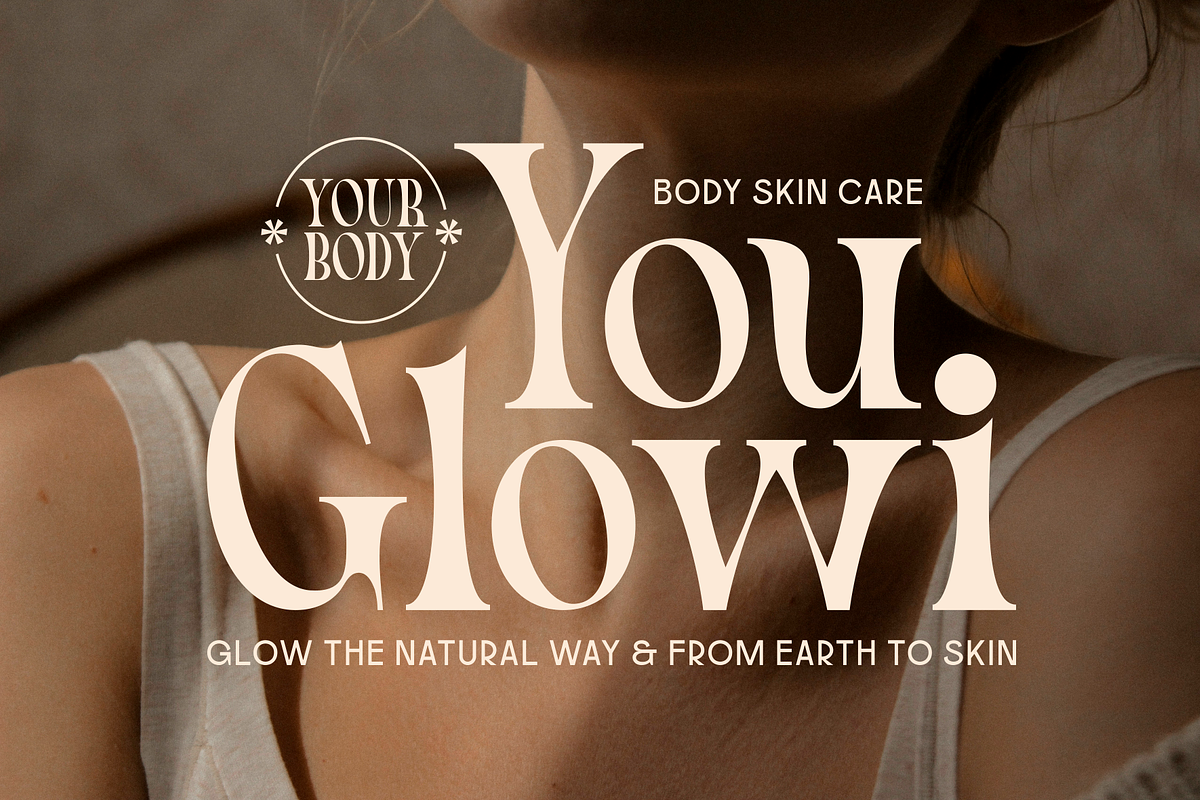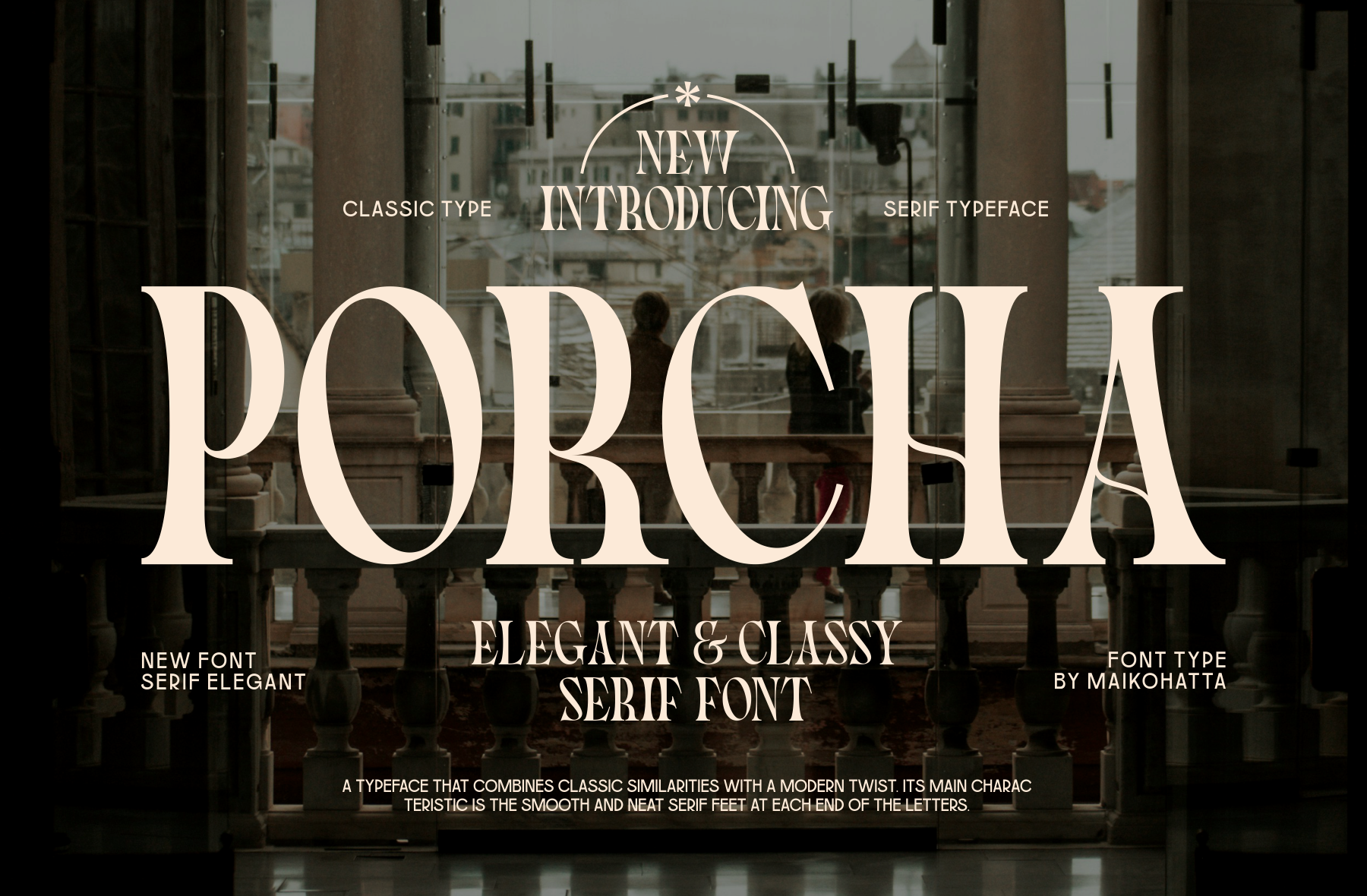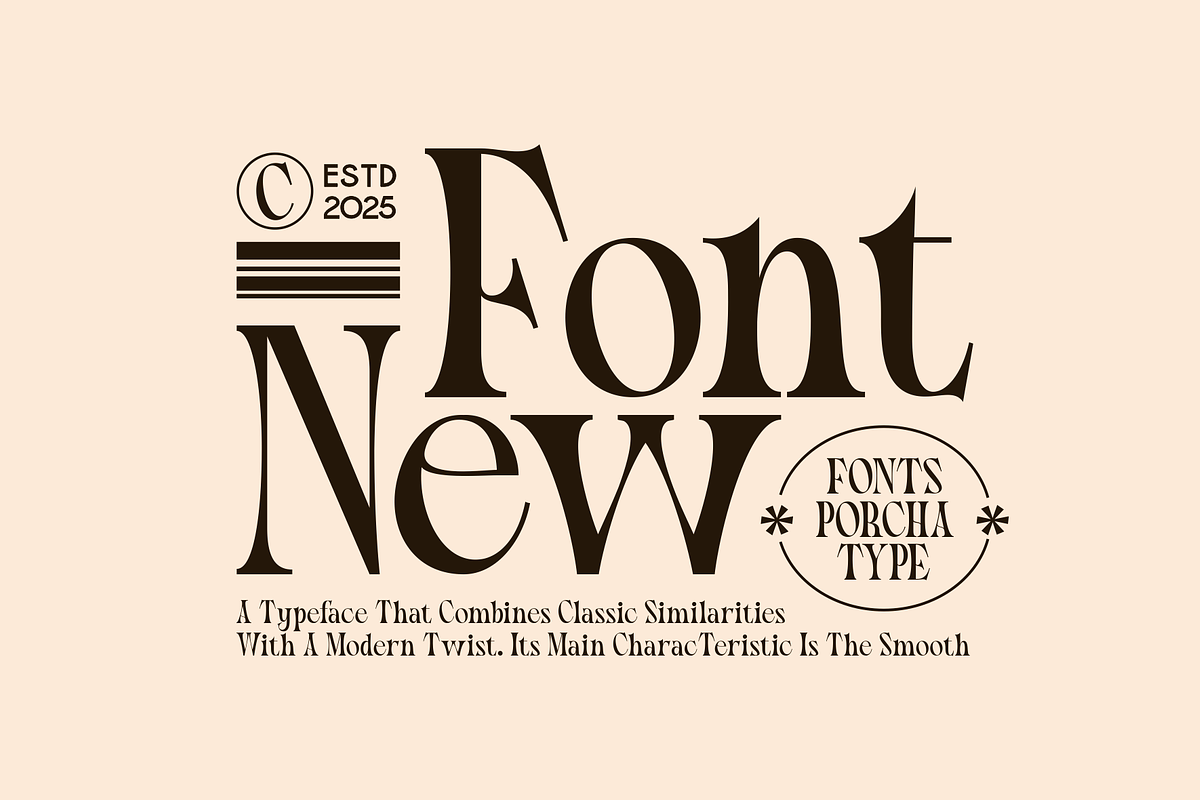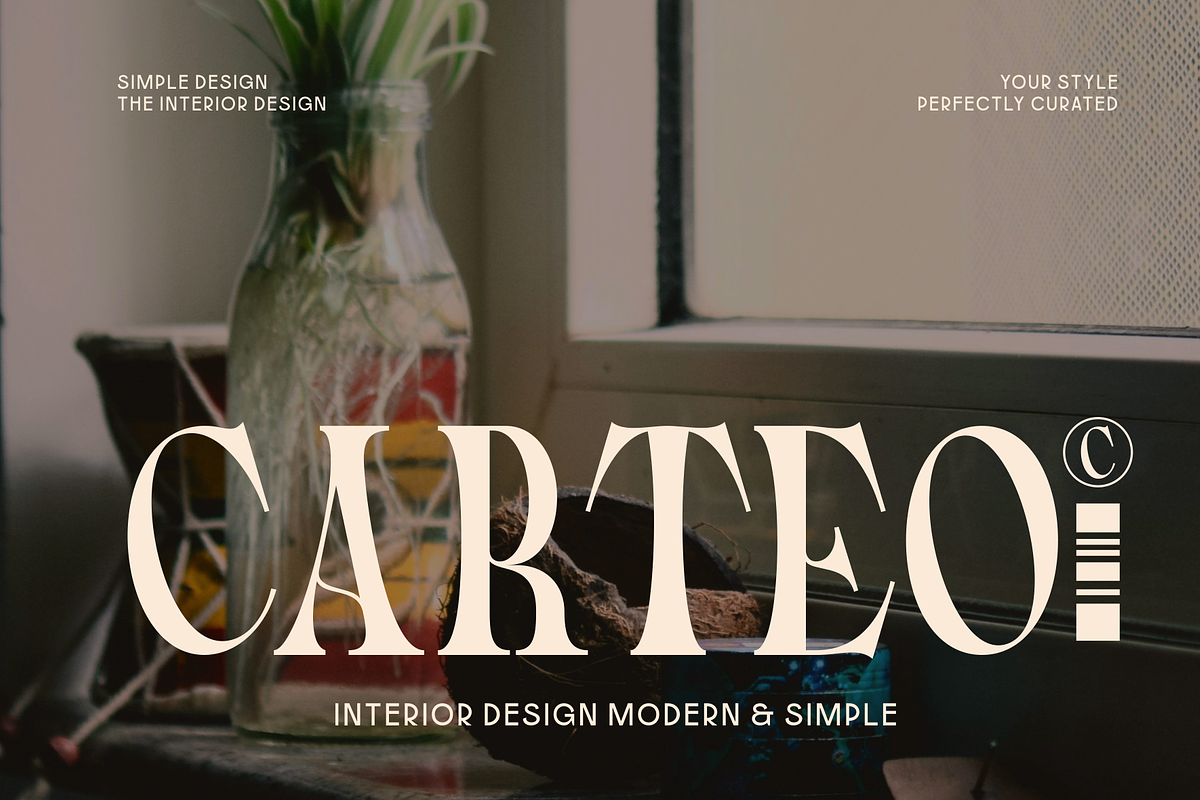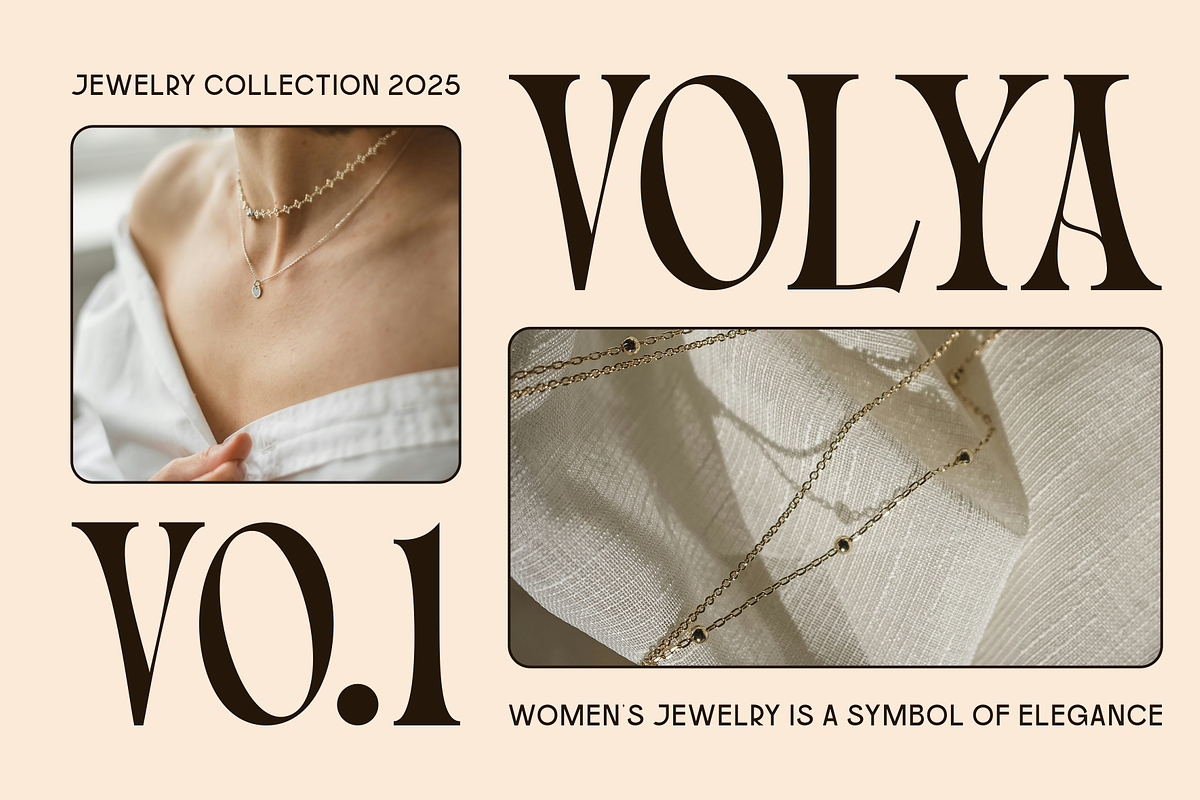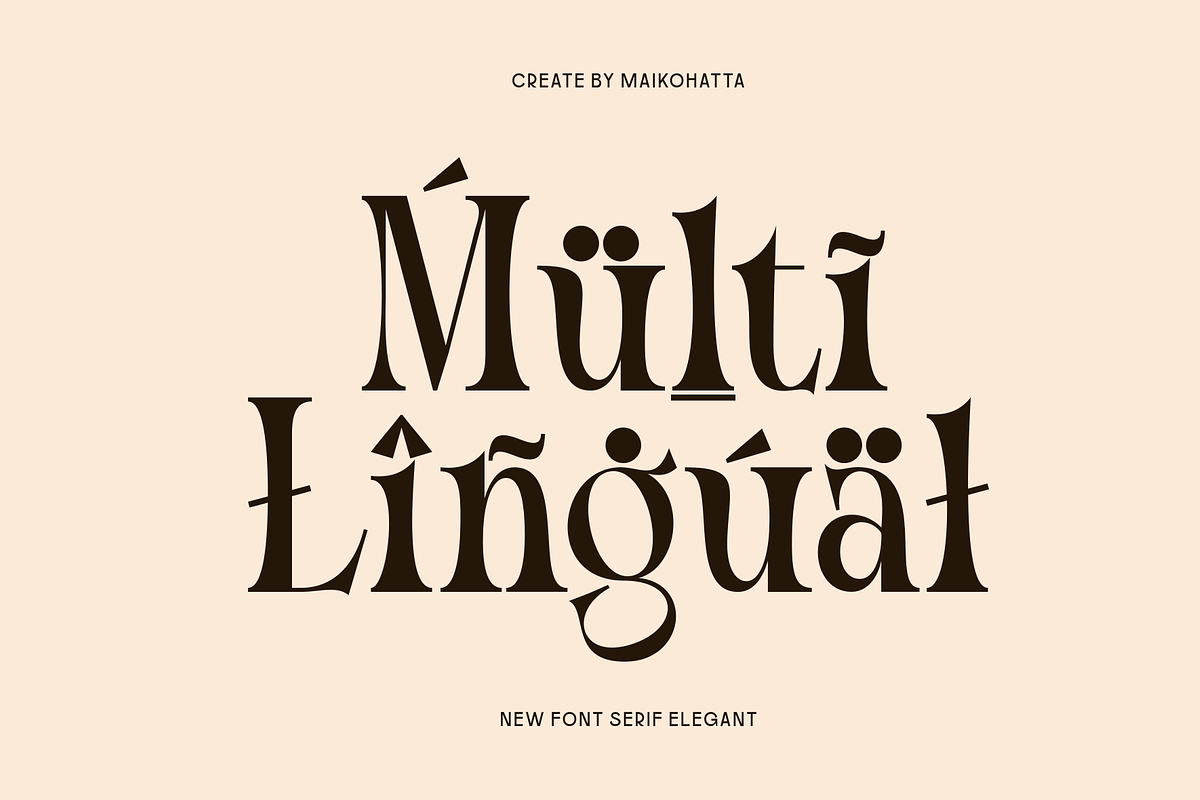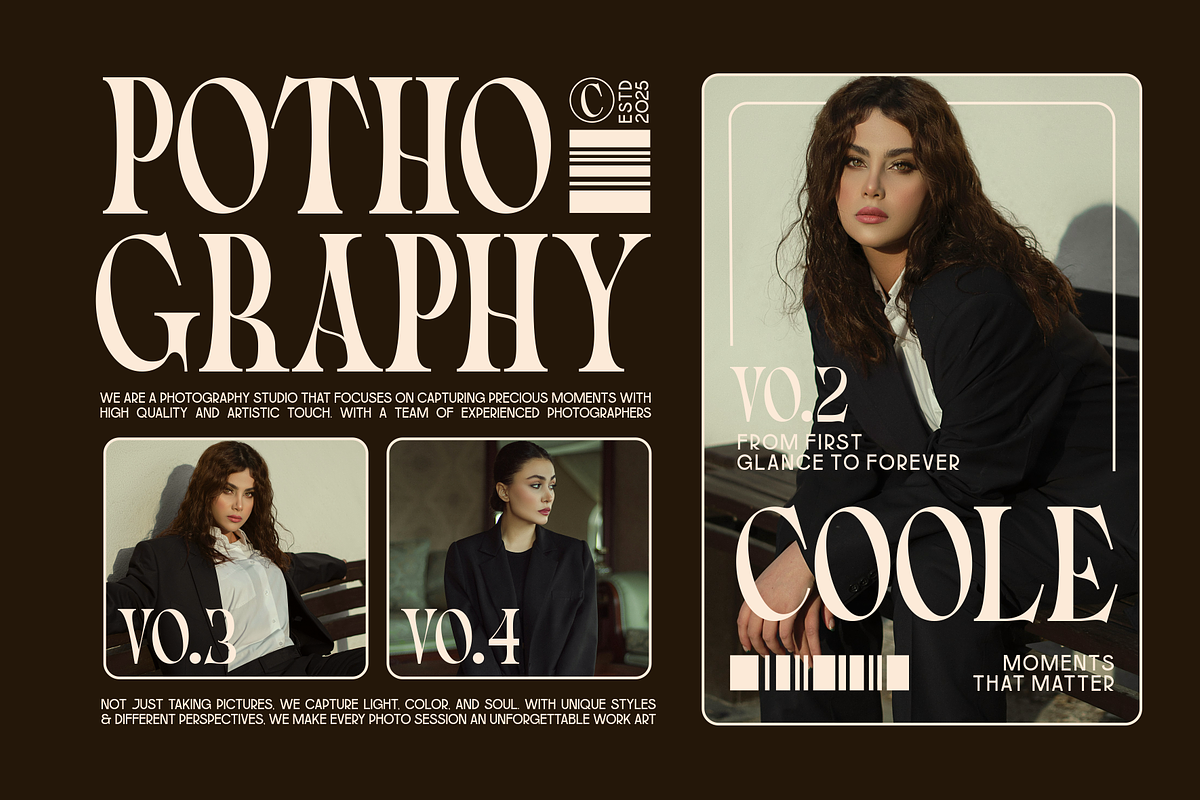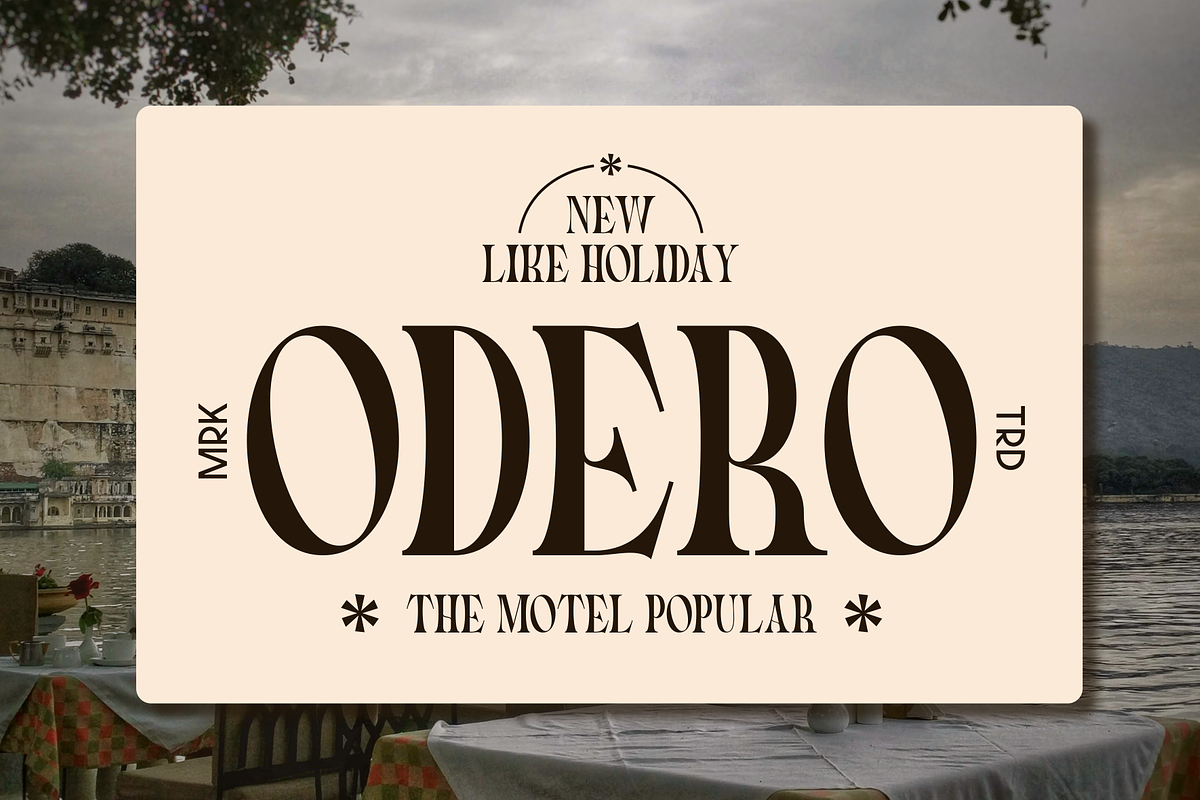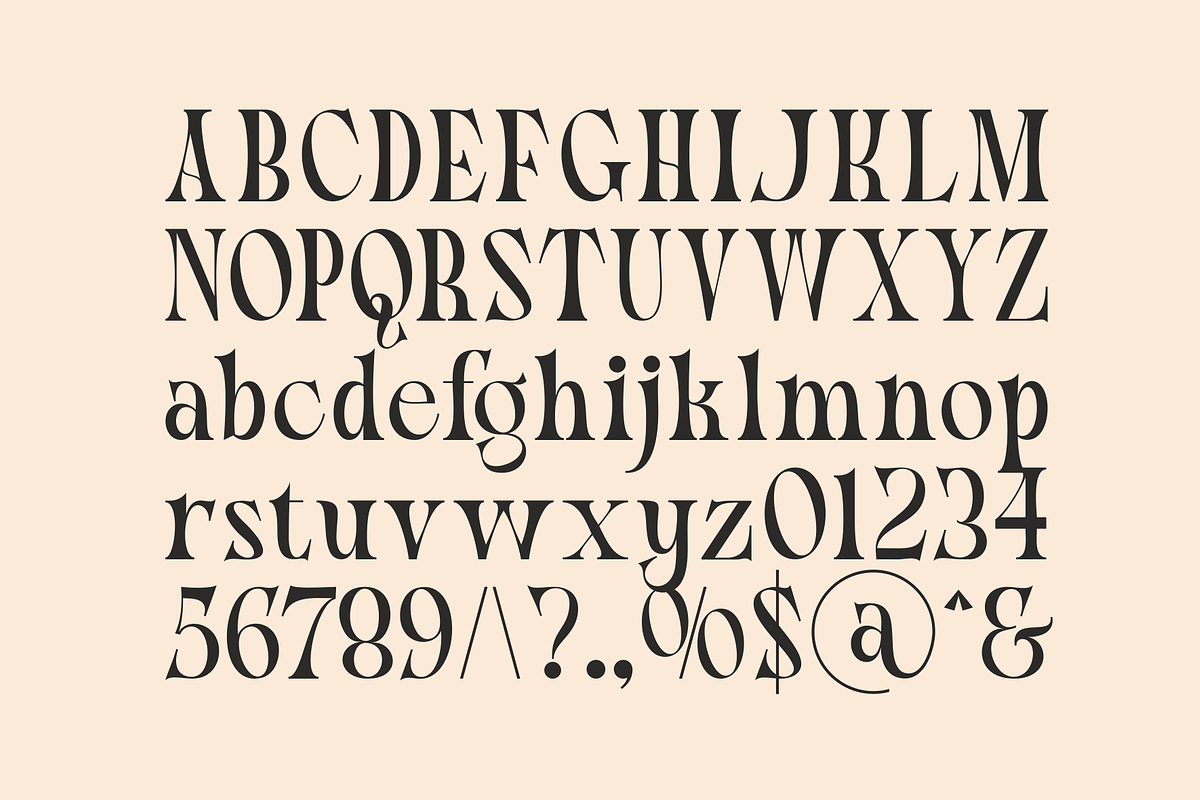
Porcha - Elegant Serif Font
Elegant Serif Font is a typeface that embodies timeless elegance and sophistication. With its smooth serifs, balanced proportions, and graceful strokes, this typeface brings a sense of luxury and classic charm to any design. Perfect for high-end branding, wedding invitations, editorial layouts, fashion logos, and projects that desire a vintage-modern aesthetic. This typeface blends traditional beauty with modern precision, making it versatile and visually appealing.